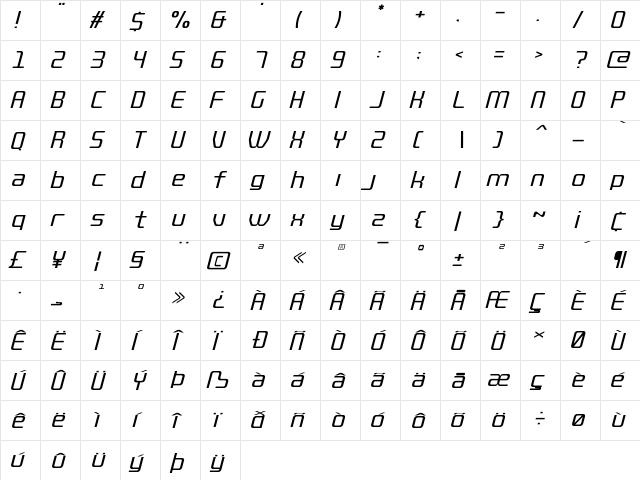
QUUB Regular_Italic
| Designer | OneSevenPointFive Studios |
Design Context for QUUB Typeface
QUUB offers clean, dependable letterforms without strong stylistic allegiance, making it a practical choice for designers who need flexibility. The slanted form adds forward momentum and visual energy.
Pro Tip: Try QUUB for annotation and caption copy alongside an upright companion — the contrast in angle creates a dynamic but ordered typographic system.